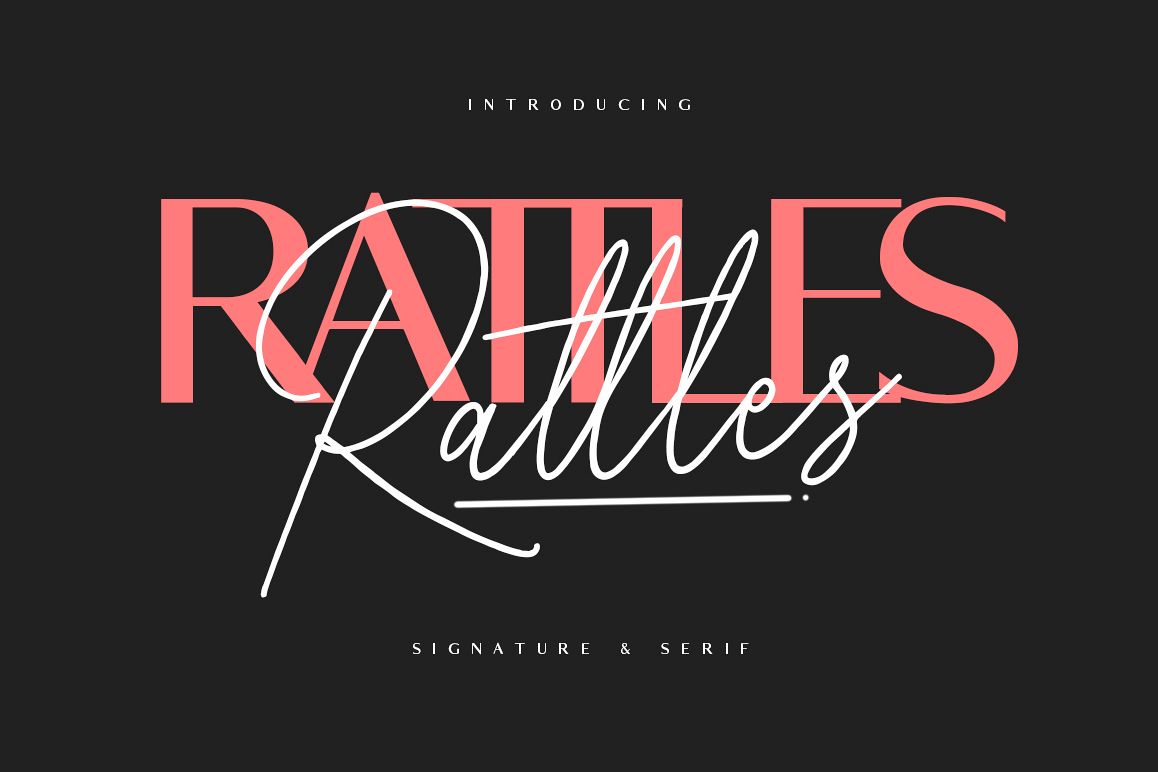
Rattles Signature plus Serif
Give your designs an authentic handcrafted feel. "Rattles" is perfectly suited to signature, stationery, logo, typography quotes, magazine or book cover, website header, clothing, branding, packaging design and more. Include Ligatures "ll, rr, ss, oo, mm, nn, tt"License: This font included for personal, commercial use, multiple projects, behalf of a client. Fonts may be printed on to products that are subsequently sold, websites and within website design. Graphics may be printed on to products that are subsequently sold when an effort is made to use them as part of a new design including a variation of other graphics or fonts.Files included: